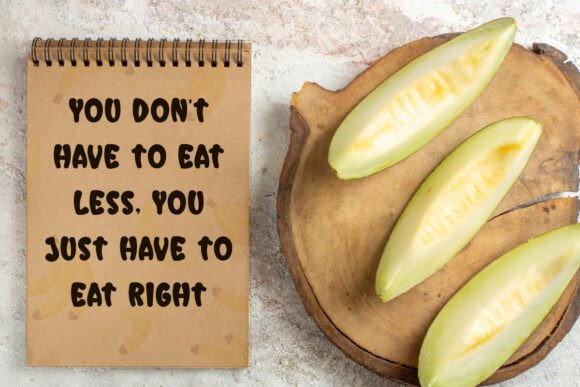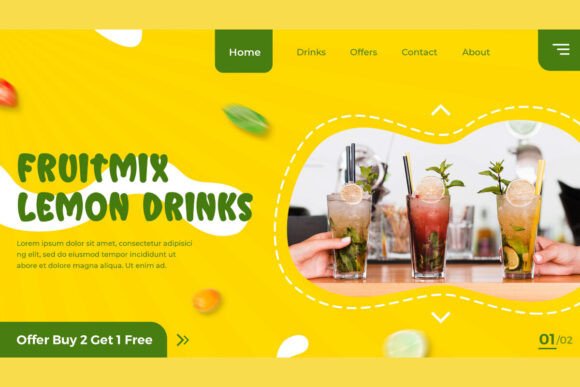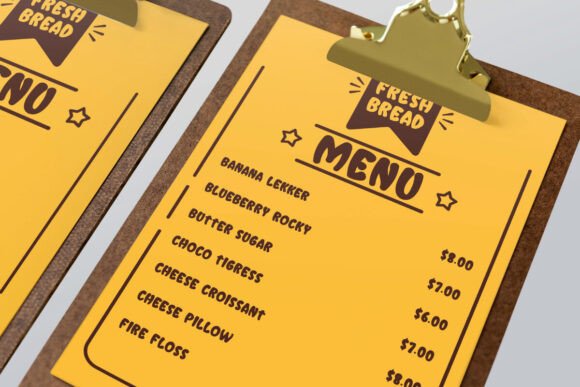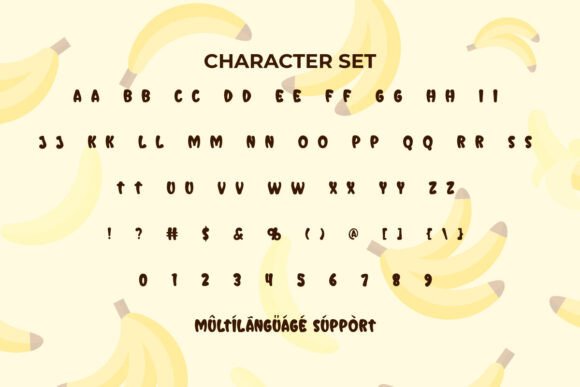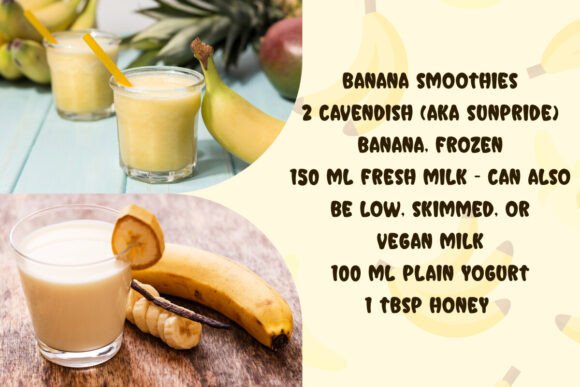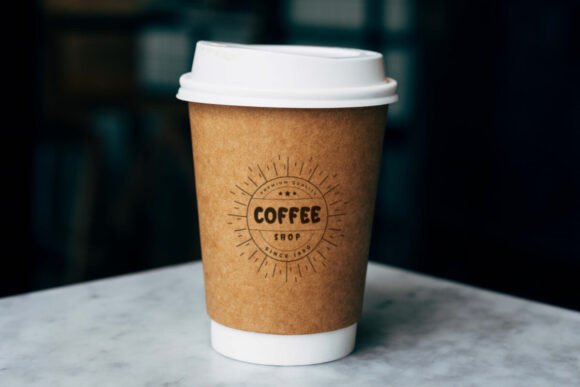
Introduction to Mini Banana Font
Have you ever stared at a blank canvas, struggling to find the perfect font to bring your creative vision to life? That’s where the Mini Banana Font comes in – a delightful display font that’s sure to add a burst of fun to your design projects.
With its bold and playful style, the Mini Banana Font is the perfect companion for designers looking to add a touch of whimsy to their work. Whether you’re working on a brand image, brochure, or flyer, this font is sure to make a lasting impression. And the best part? It’s available for free download, complete with a transparent background, making it easy to incorporate into your high-quality designs.
Key Features of Mini Banana Font
- High-quality design resource suitable for various creative projects
- Unique, playful design with a small size, ideal for adding a touch of whimsy to your project
- Resolution-independent, ensuring crisp and clear display regardless of the output size
- Designed with a minimalist approach, perfect for adding a subtle pop of color to your creative project
Honest Review: Mini Banana Font
I recently came across the Mini Banana Font and was excited to dive in and see what it had to offer. As a designer, I’m always on the lookout for unique and high-quality design resources to enhance my creative projects.
- ✨ Unique and playful design aesthetic: The Mini Banana Font has a fun and quirky feel to it that’s perfect for adding some personality to your designs.
- ✨ High-quality vectors: The font files are available in high-quality vector formats, making it easy to scale and manipulate the text as needed.
- ✨ Transparent background: The font files include a transparent background, which makes it easy to place the text over any background image or color.
- ⚠️ Limited character set: The Mini Banana Font has a limited character set, which may not be suitable for longer blocks of text.
- ⚠️ Not ideal for formal designs: The playful design aesthetic of the font may not be suitable for more formal or professional designs.
Overall, I’m impressed with the Mini Banana Font and would definitely recommend it to designers looking for a fun and creative solution for their next project. Just be aware of the limitations and use it accordingly.
Mini Banana Font
Designing with Mini Banana Font
The Mini Banana Font is a unique and creative design resource that offers a high-quality, free download with a transparent background. This font is perfect for adding a playful touch to your next creative project.
Tips for Getting the Most Out of Mini Banana Font
For the best results, use the Mini Banana Font in conjunction with bright and bold colors to create a visually striking design. You can also experiment with different font sizes and styles to add depth and interest to your design.
Common Use Cases for Mini Banana Font
The Mini Banana Font is perfect for creating eye-catching titles, headings, and captions for social media posts, blog articles, and advertisements. It’s also great for designing children’s books, party invitations, and other creative projects.